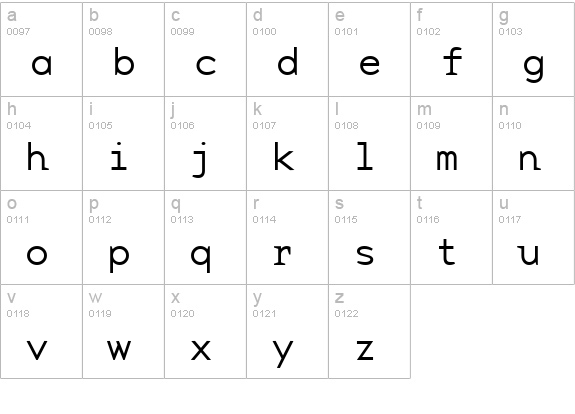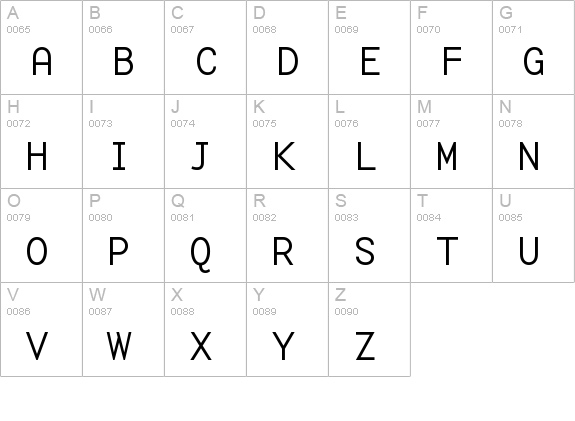
BaseMonoWideThin Regular Font Details
BaseMonoWideThin Regular is the standard, neutral variant in the BaseMonoWideThin typeface family \xE2\x80\x94 well suited to general body text, paragraphs, and standard typographic work.
BaseMonoWideThin Regular is a sleek and modern font designed for a clean and professional look. With its thin and wide characters, this typeface exudes a sense of elegance and sophistication. Perfect for projects that require a minimalist and contemporary aesthetic, BaseMonoWideThin Regular is versatile and easy to read. What's even better is that BaseMonoWideThin Regular is available for free download at FontsMarket.com. Whether you're working on a branding project, website design, or any other creative endeavor, this font is a fantastic choice that won't cost you a penny. Don't miss out on the opportunity to enhance your designs with this stylish and high-quality typeface. Download BaseMonoWideThin Regular today and elevate your work to the next level.